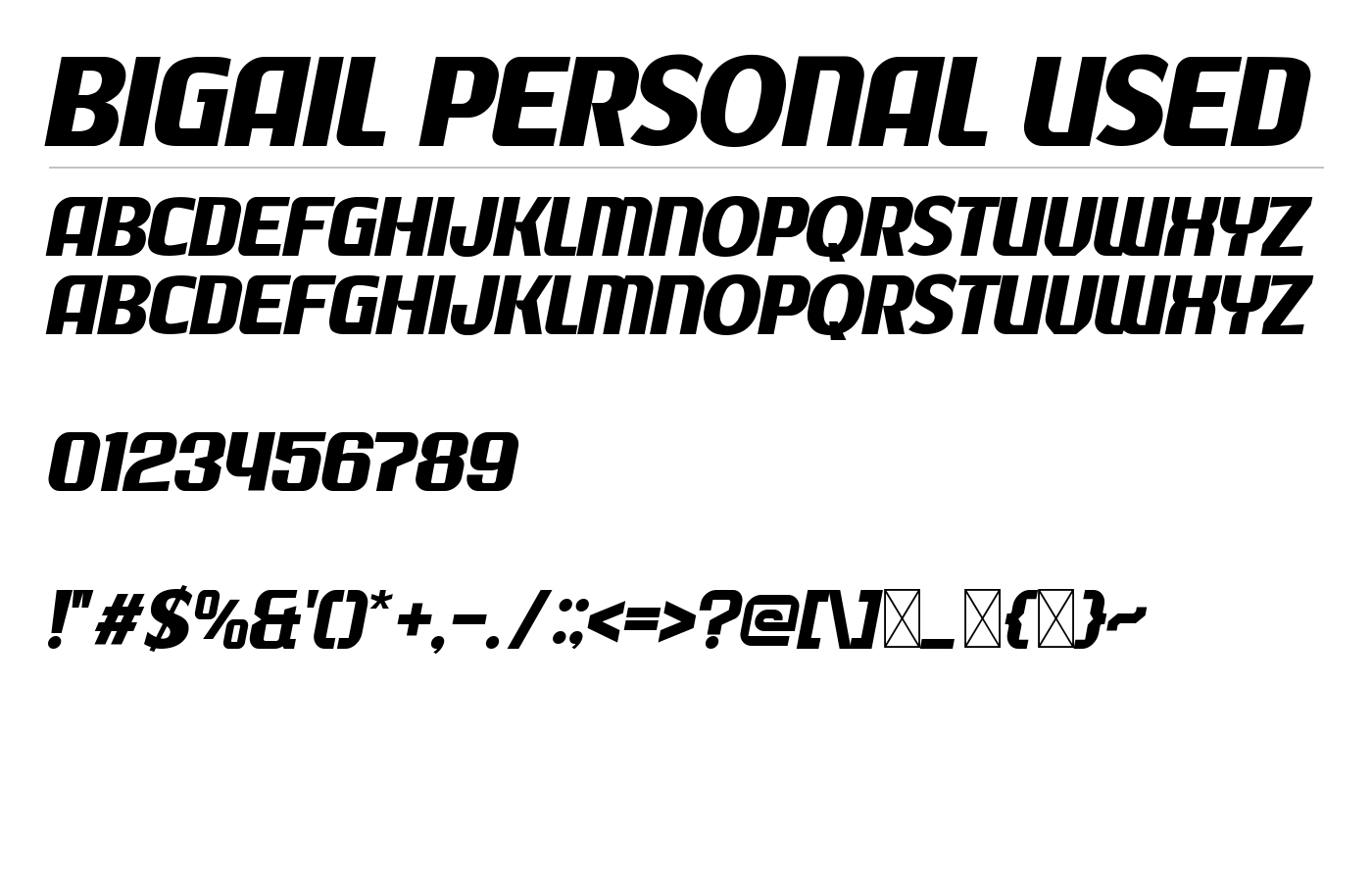
Bigail is a bold, condensed sans serif typeface with a strong, modern presence and dynamic italic slant that gives it a sense of speed and motion. Its sharp, geometric letterforms and uniform stroke weight make it ideal for impactful headlines, logos, and branding where a confident and futuristic look is desired. This font works well in sports, technology, and automotive contexts, offering a clean yet energetic style that grabs attention.
Bigail Font
About Bigail Font